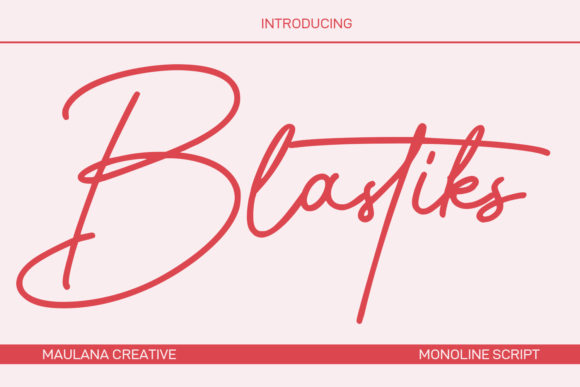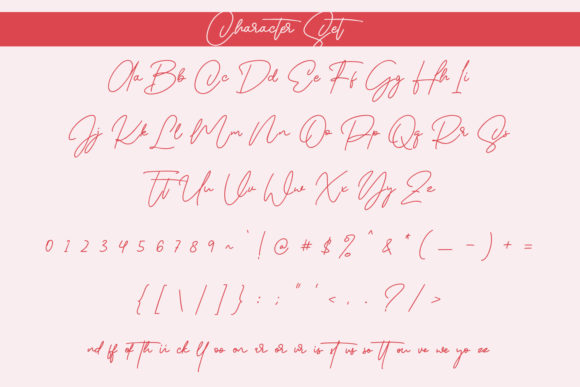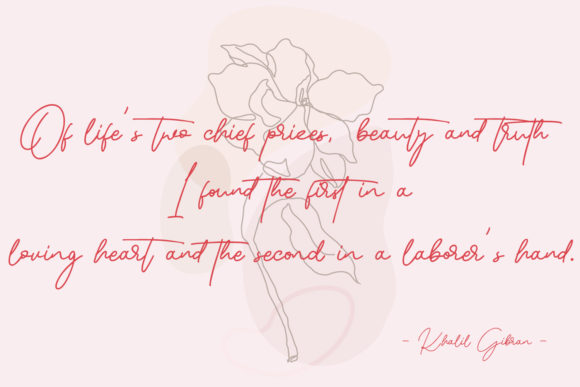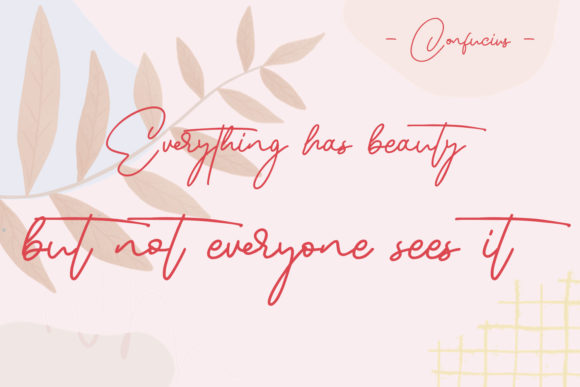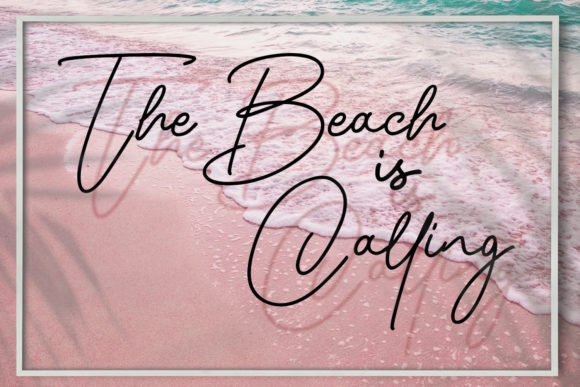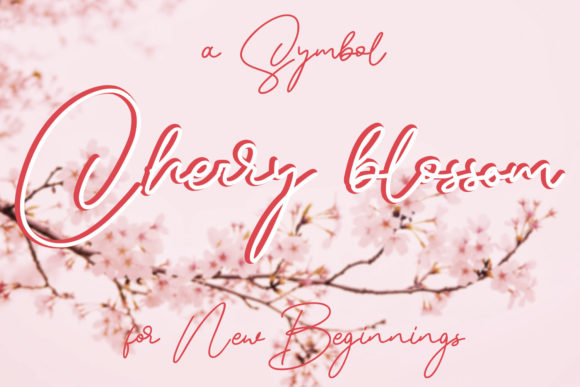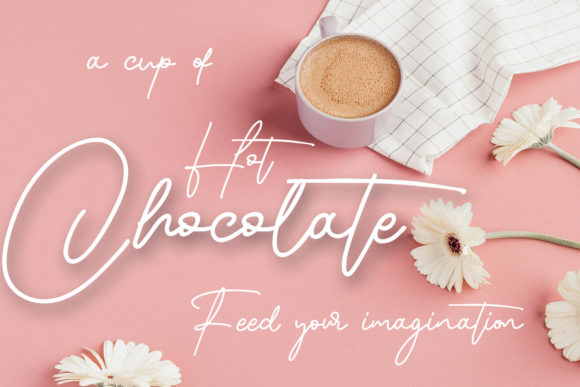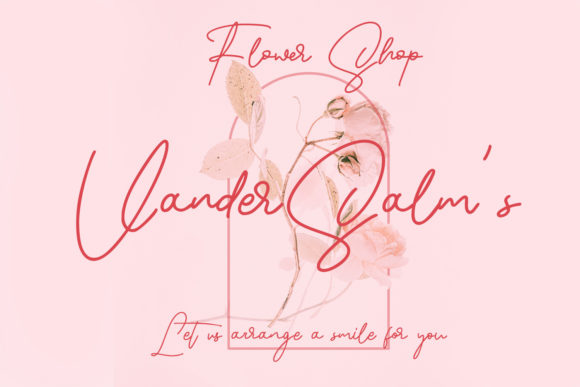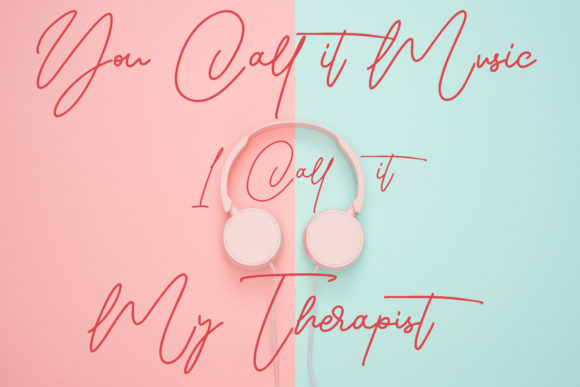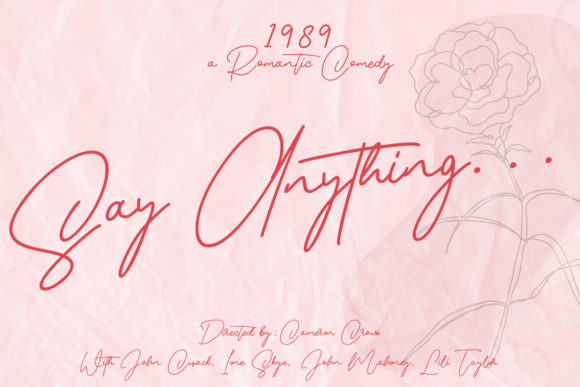
Blastiks Signature Font
About Blastiks Signature Font
“Blastiks Signature” is a dynamic and expressive script font that adds a touch of flair and personality to your designs. With its slim and slanted letterforms, this font exudes a sense of movement and energy, making it perfect for a variety of creative projects.
The font’s slanted mono-line strokes give it a unique and modern appearance, creating a sense of flow and continuity throughout your designs. Whether you’re using it for headings, logos, branding, or other creative applications, “Blastiks Signature” adds a stylish and eye-catching element.
The fun characters and ligatures in “Blastiks Signature” allow you to play around with different letter combinations and create custom looks. This gives you the flexibility to tailor the font to your specific design needs and add a playful touch to your projects.
For logos and branding, “Blastiks Signature” can bring a sense of originality and creativity to your visual identity. Its expressive strokes and unique letterforms help your brand stand out and make a memorable impression on your audience.
In headings and titles, the font’s slim and energetic style draws attention and creates a sense of excitement. Whether you’re designing posters, banners, or social media graphics, “Blastiks Signature” adds a captivating element to your typography.
When used in product packaging or labels, the font’s dynamic appearance can enhance the overall design and reflect the lively and vibrant nature of the product. It’s particularly well-suited for products targeting a youthful and energetic audience.
In summary, “Blastiks Signature” is a versatile and expressive script font that injects a dose of energy and creativity into your designs. Its slim, slanted letterforms, fun characters, and ligatures make it a great choice for a wide range of projects, allowing you to create engaging and impactful visuals that leave a lasting impression.